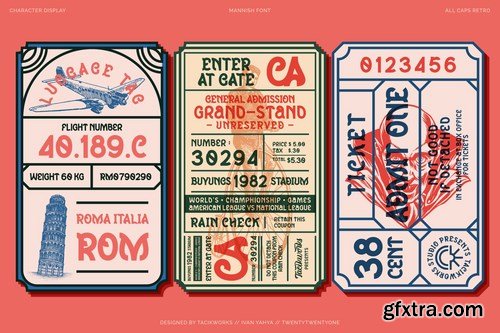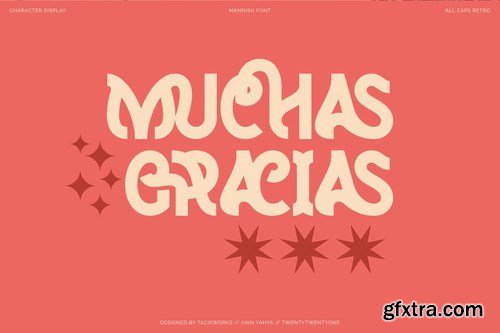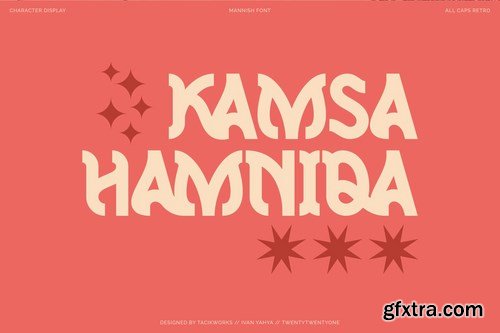
Tacikworks studio presents Mannish Retro Display Font, it's a all caps font which is inspired by retro designs. Make the classic impression of this font stand out more. This font has approximately 400+ glyphs characters including uppercase, lowercase, discretionary ligatures and standard ligatures alternatives. It is suitable for creating vintage designs such as logo posters, merchandise, clothing, brochures, business cards and others.
Uppercase
Lowercase
Numbers
Punctuations
Stylistic Alternates & Ligatures
Multilingual Languages Supported